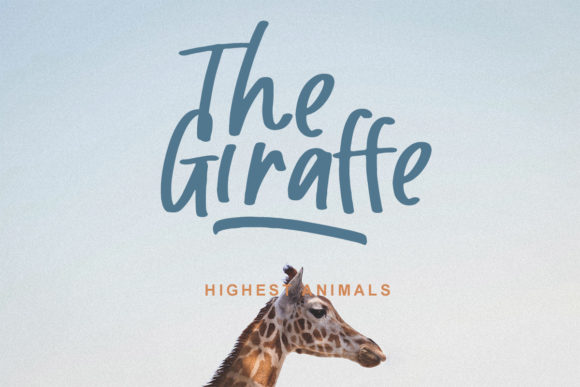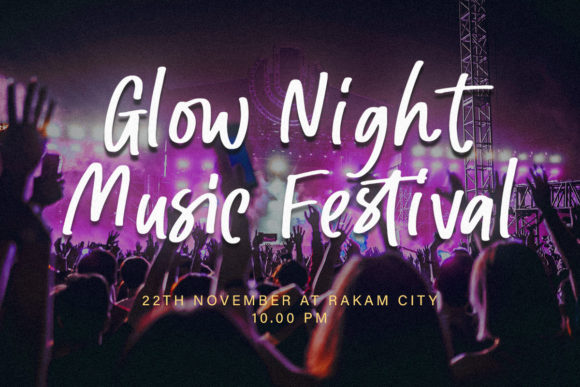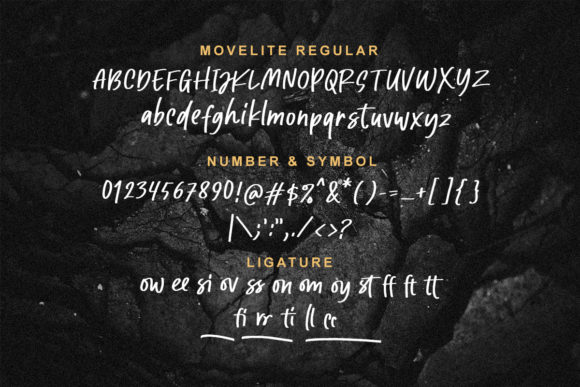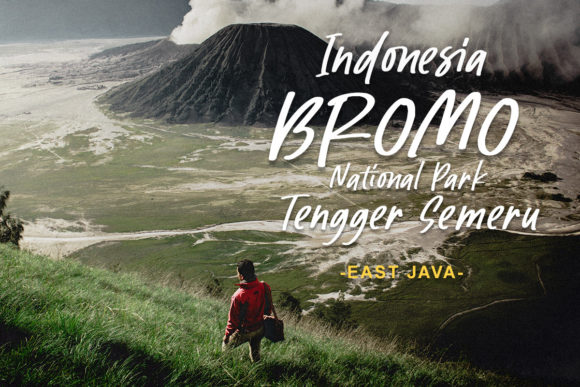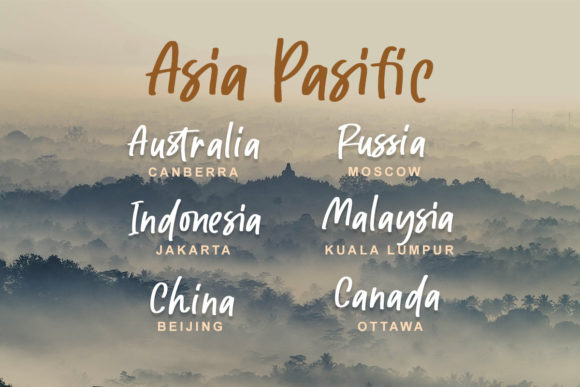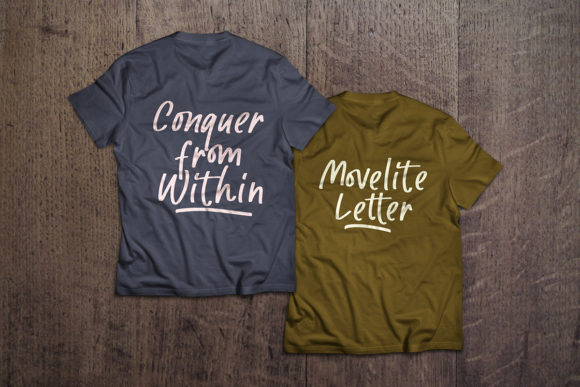
Introduction to Movelite Font
As a designer, there’s nothing quite like the thrill of bringing a creative project to life. The moment when all the elements come together in perfect harmony, and the design starts to breathe its own unique personality. For many of us, that magic moment is often fueled by the right font – one that can add a touch of elegance, sophistication, or playfulness to our work. And for those looking to elevate their design game, we’re excited to introduce you to the Movelite Font, a game-changing addition to your design resource arsenal.
With its smooth script design and abundance of ligatures, Movelite Font is the perfect companion for any creative project. Whether you’re working on a high-quality logo, a beautiful brochure, or a stunning website, this versatile font is sure to bring your vision to life. And the best part? It’s available for free download, complete with a transparent background, making it easy to integrate into any design project.
- Unique characteristics: Includes a mix of modern and elegant styles, making it perfect for various design applications.
Honest Review: Movelite Font
I recently stumbled upon the Movelite Font and was immediately drawn to its modern and sleek design. As a designer, I’m always on the lookout for high-quality design resources to elevate my creative projects. And let me tell you, Movelite Font definitely delivers.
- High-quality design with a modern aesthetic
However, there are a few limitations to keep in mind: ⚠️ The font is only available in a limited number of weights and styles, which may not be ideal for designers who need a wider range of options. Additionally, the font may not be suitable for very small text sizes, as it can become difficult to read.
Overall, I’m really impressed with the Movelite Font and would definitely recommend it to fellow designers. With its high-quality design and versatility, it’s a great addition to any design resource library.